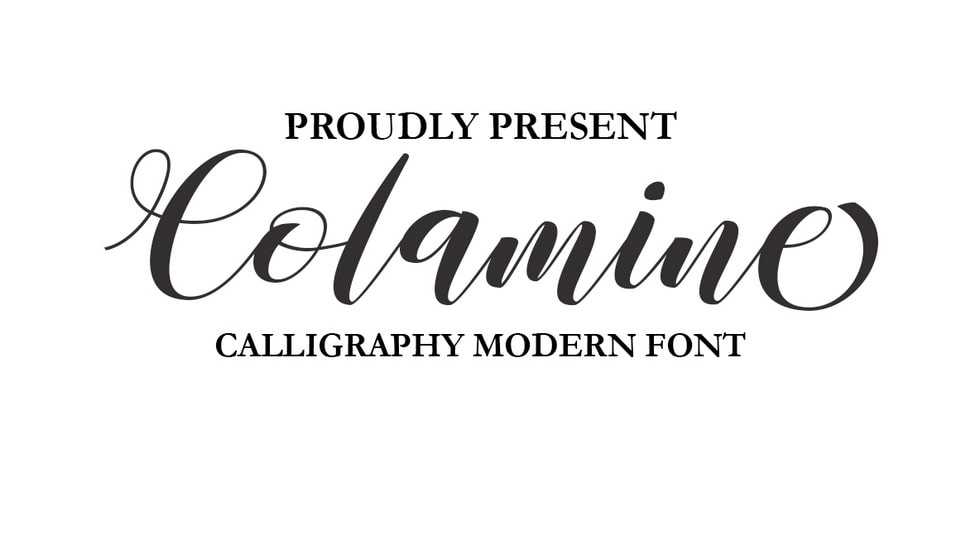
Download Colamine font, a modern, free-flowing, hand-drawn script. Colamine has three characters set, including uppercase and lowercase letters with full initial and final swash sets.